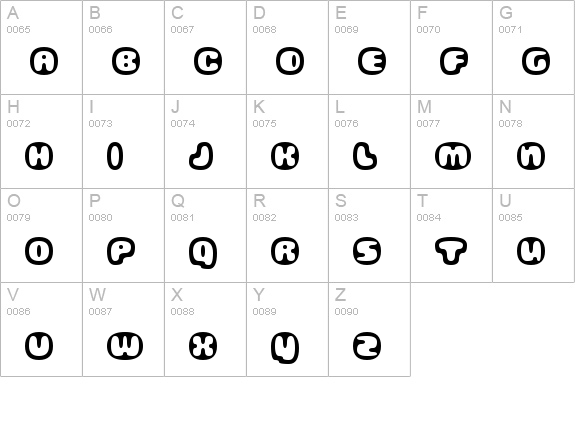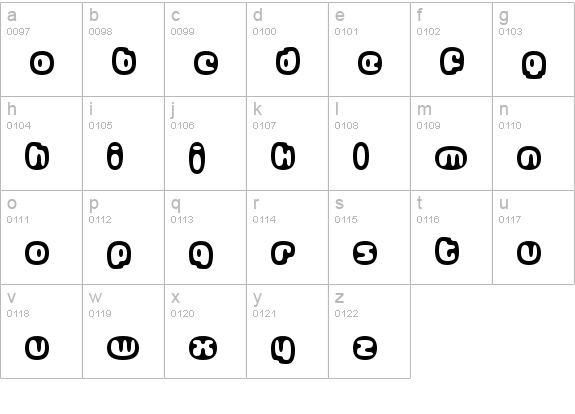
Gubblebum Font Details
Introducing Gubblebum font, a whimsical and playful typeface that is sure to add a touch of fun to your designs. With its rounded edges and friendly appearance, Gubblebum is perfect for children's books, greeting cards, and any project that needs a lighthearted feel. What's even better is that Gubblebum font is completely free to download at FontsMarket.com. That's right, you can add this charming font to your collection without spending a penny. So why wait? Download Gubblebum today and let your creativity shine with this delightful typeface!